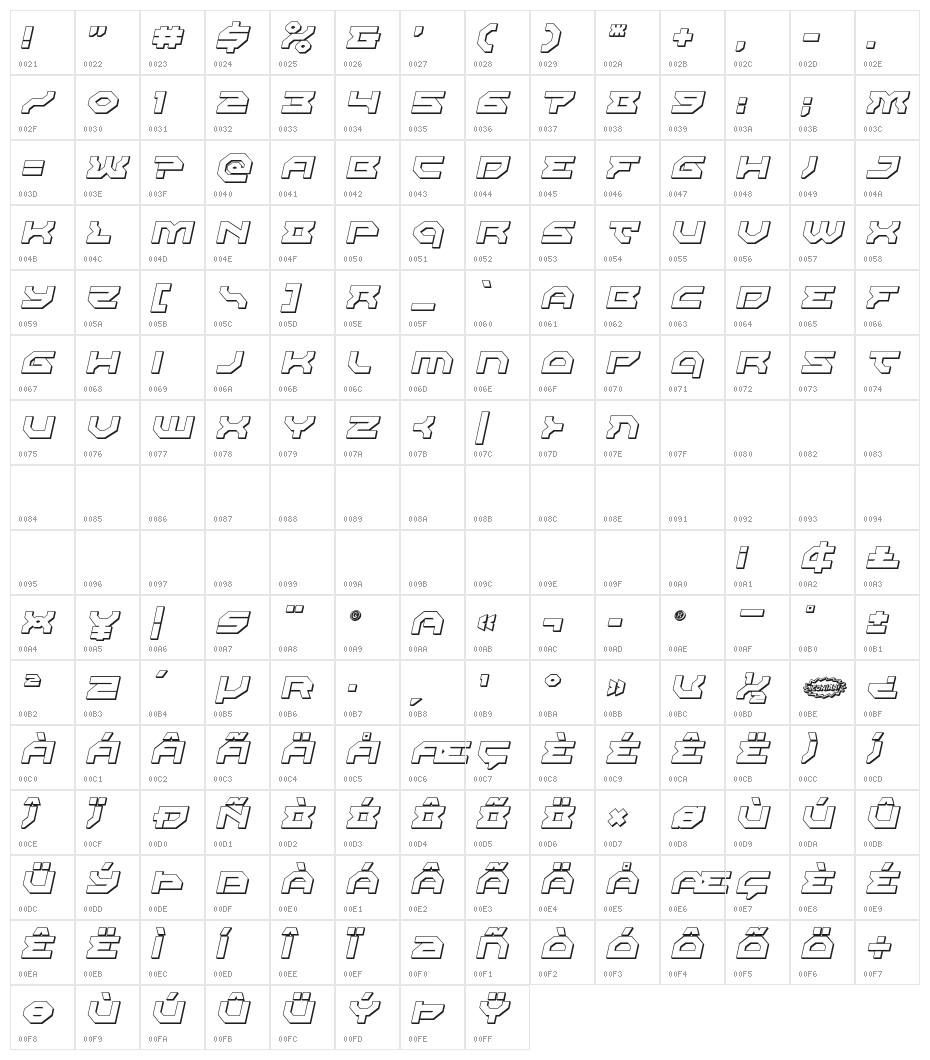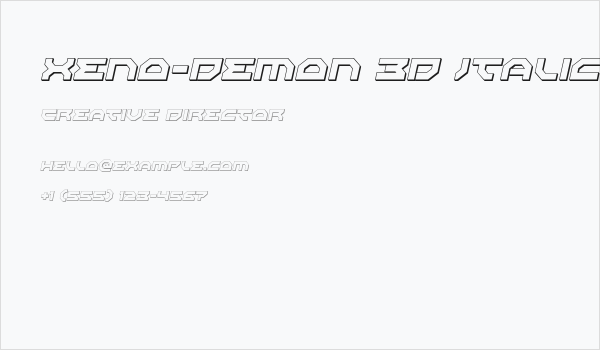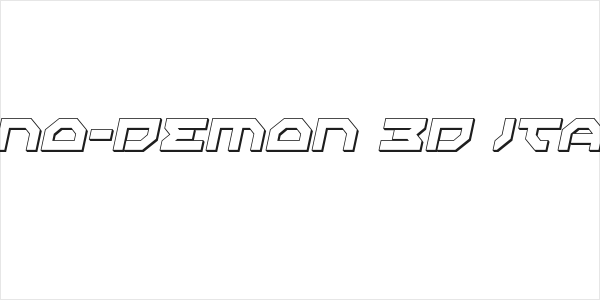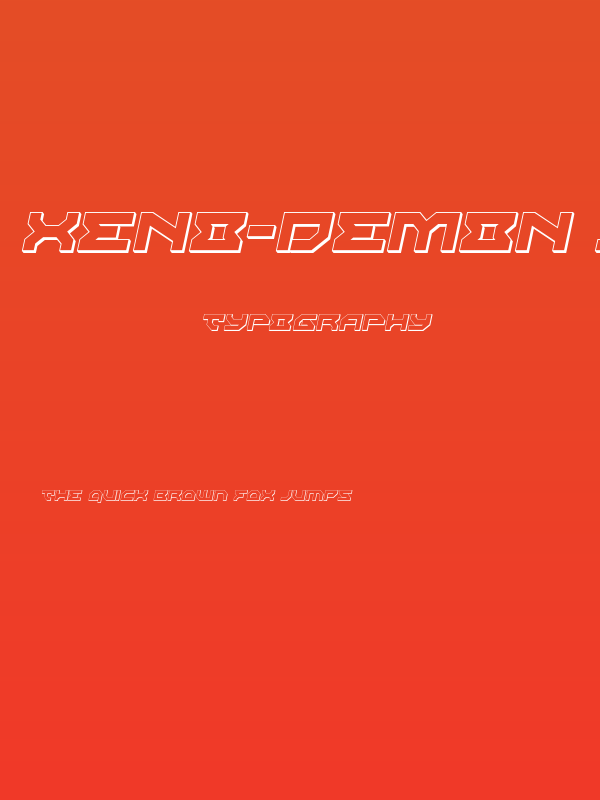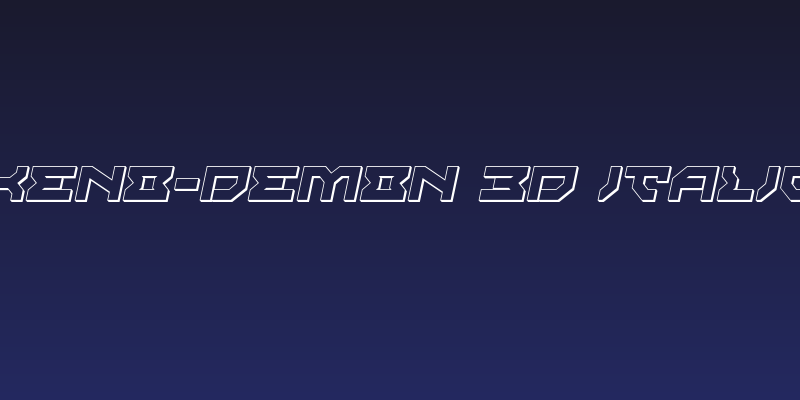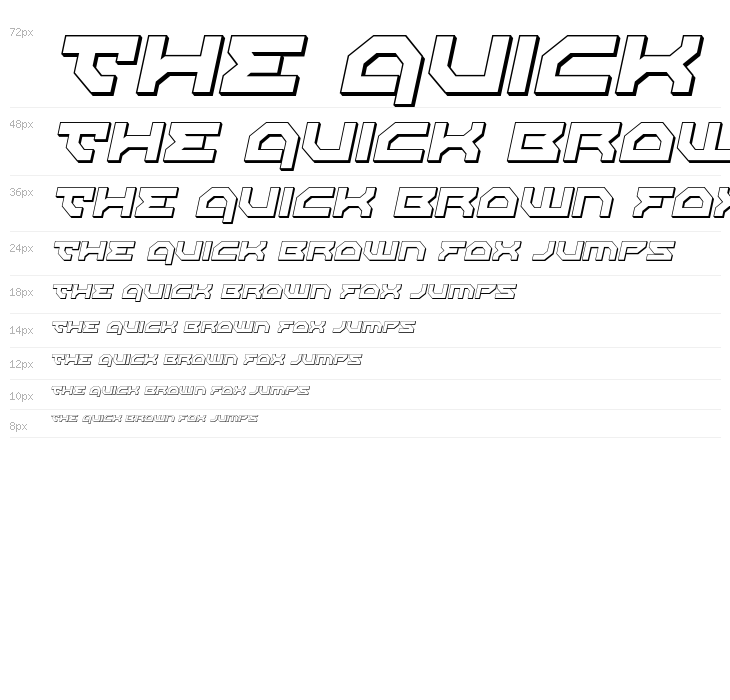
Xeno-Demon 3D Italic Font
Xeno-Demon 3D Italic Description
This font features a bold, futuristic design with a three-dimensional effect that gives it a dynamic and edgy appearance. The characters are structured with sharp angles and geometric shapes, creating a sense of movement and depth. The italic style adds to its modern and aggressive look, making it stand out in any design. The uppercase and lowercase letters maintain a consistent style, while the numbers and special characters complement the overall aesthetic. This font is ideal for projects that require a strong, impactful visual presence.
| Proposed Projects | Ideal for sci-fi themed projects, video game titles, movie posters, and branding that requires a modern, edgy look. |